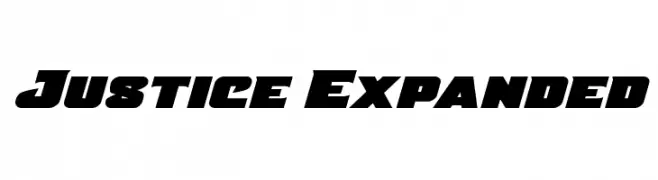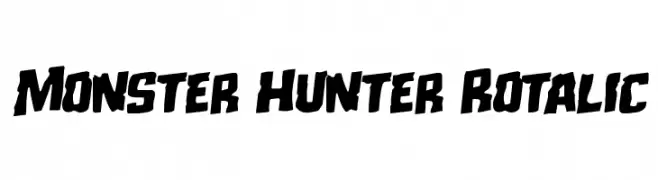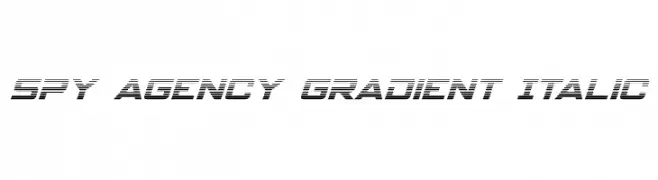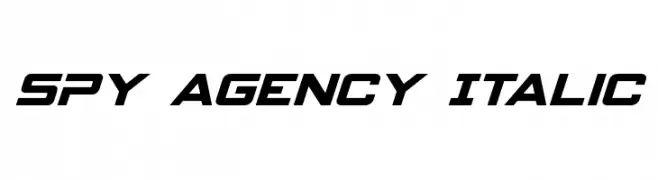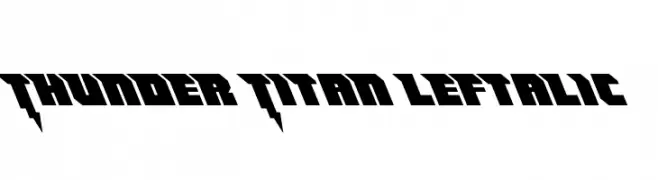
A bold, expanded, and italic font with a modern, dynamic style.
A bold, left-slanted font with a futuristic and dynamic style.
A bold, italicized font with a dynamic and energetic style.
A bold, outlined, and italic font with a playful, energetic style.
A bold, italicized font with angular, dynamic characters.
A bold, condensed italic font with a dynamic and futuristic style.
A bold, italicized font with sharp angles and a dynamic presence.
A bold, expanded, and italic font with a dynamic, angular design.
Bold, italic, and expanded font with a dynamic and modern style.
A bold, italic font with a dynamic, futuristic style and tight spacing.
A bold, left-slanted font with a modern, dynamic style.
A bold, outlined font with a dynamic, slanted style.
A bold, angular font with a futuristic and dynamic style.
A bold, jagged font with a dynamic and aggressive style.
A bold, jagged, extra-condensed font with a dynamic and distressed style.
A bold, dynamic font with a rugged, distressed style and strong presence.
A bold, italicized font with sharp angles and a dynamic presence.
A bold, italic font with sharp angles and high contrast, perfect for impactful designs.
A bold, expanded, and italicized font with a modern, dynamic style.
A bold, italic, and angular font with a futuristic style.
A bold, angular font with a futuristic and dynamic style.
A bold, italic font with sharp angles and high contrast, perfect for dynamic designs.
A bold, aggressive font with sharp, angular edges and dynamic style.
A bold, italic, and dynamic font with a rugged, energetic style.
A bold, dynamic font with a comic book style and energetic feel.
A bold, italic, and geometric font with a modern and authoritative style.
Bold, italicized font with a dynamic and energetic style.
A bold, italicized font with a dynamic, angled design and high contrast.
A bold, italicized font with dynamic and energetic letterforms.
A bold, angular, and italic font with a dynamic and modern style.
A bold, angular font with a futuristic and dynamic style.
A bold, italic, and angular font with a futuristic and dynamic style.
A bold, italicized font with sharp, angular lines and an expanded width for a dynamic, futuristic look.